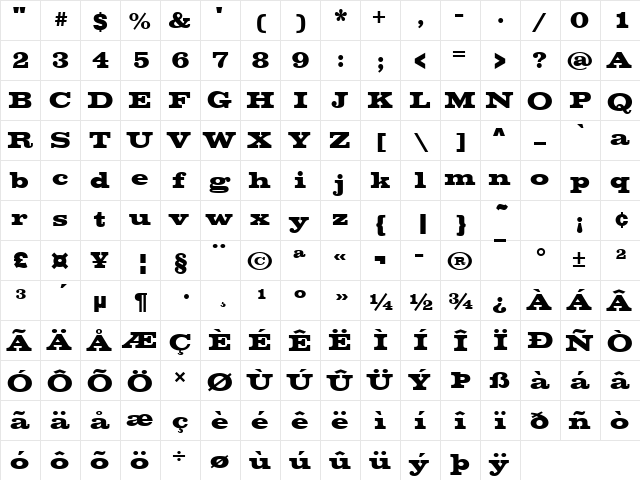
VoltaT Bold
Design Context for VoltaT Typeface
VoltaT takes a measured approach to typography — its balanced proportions and neutral character make it a reliable workhorse for both digital and print work. Its bold stroke weight gives it real presence on the page.